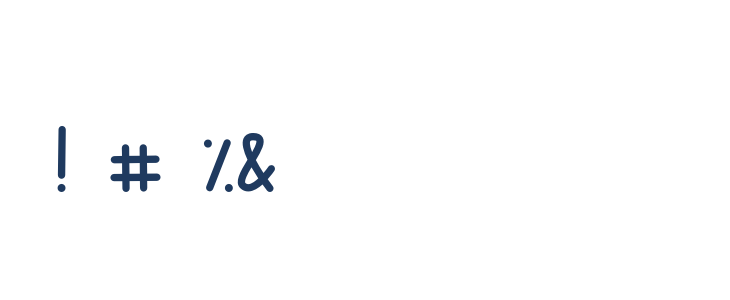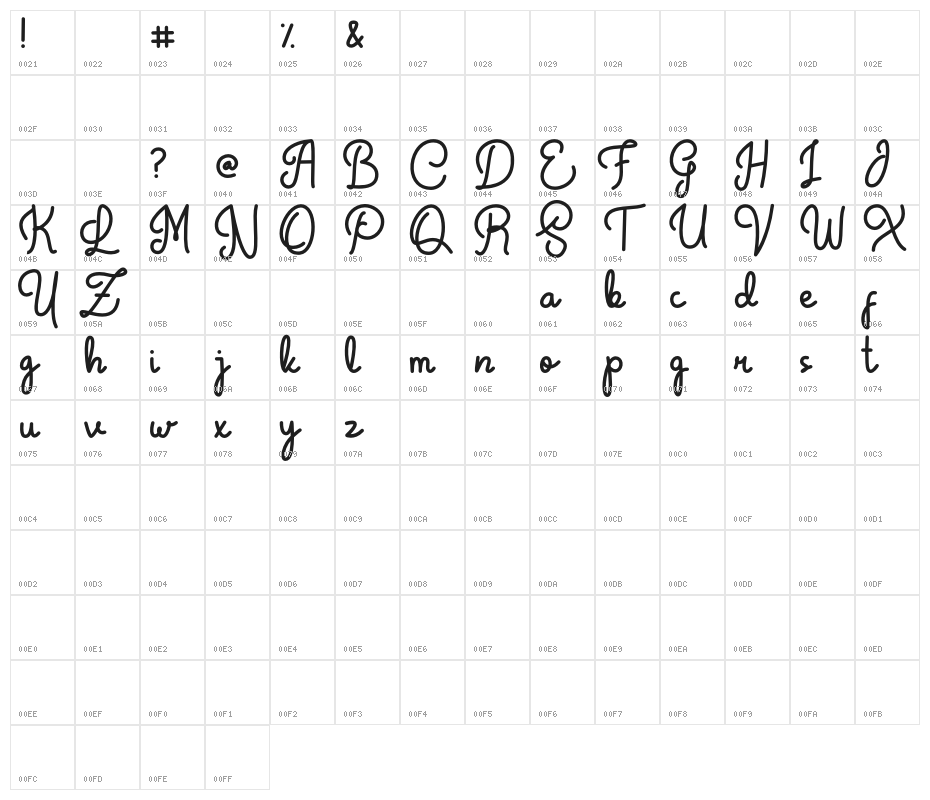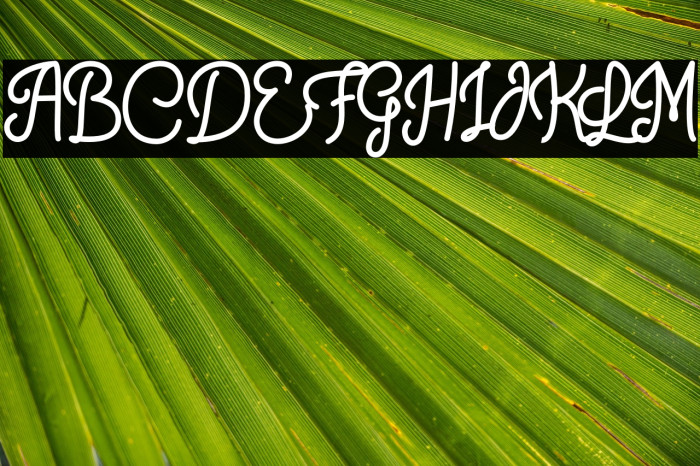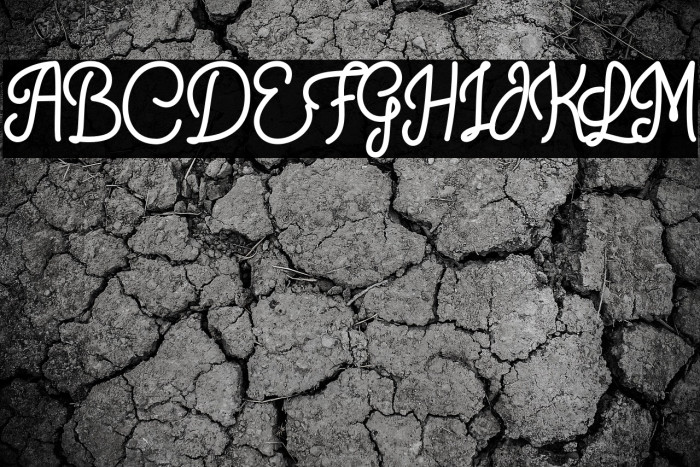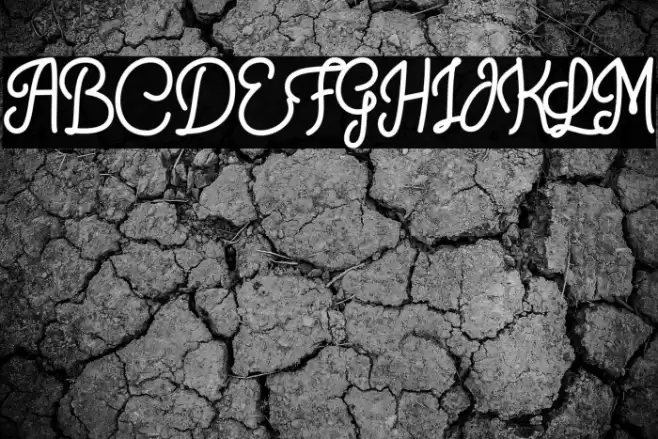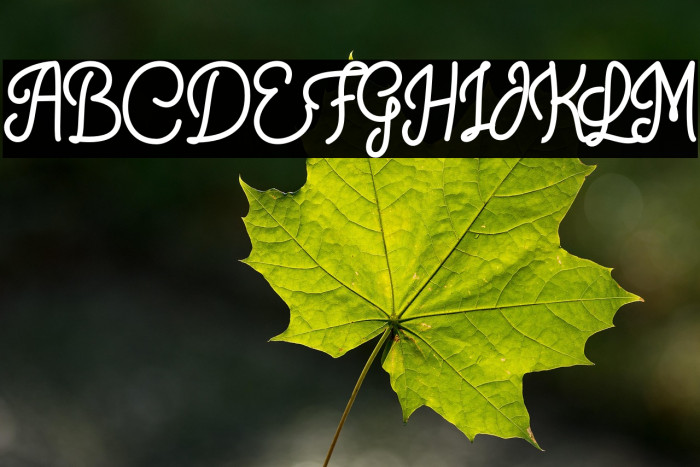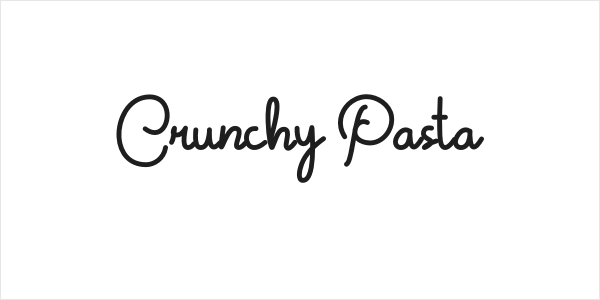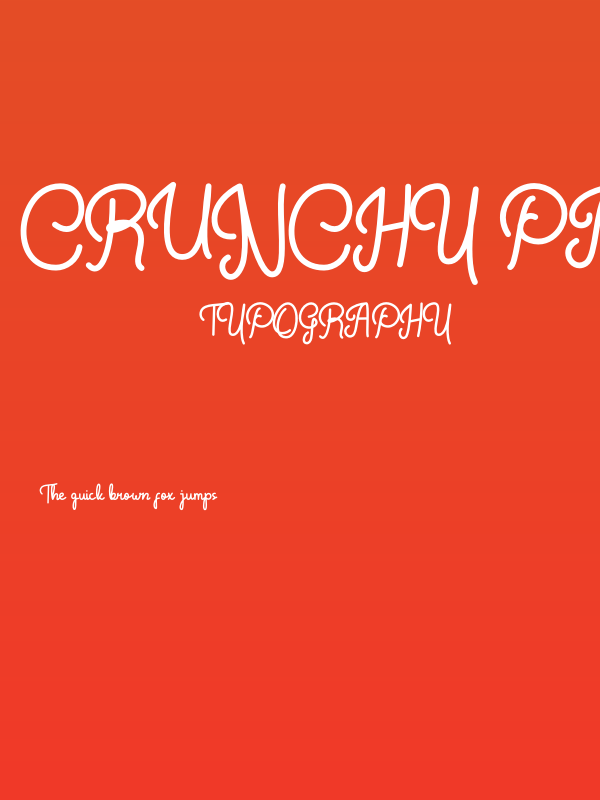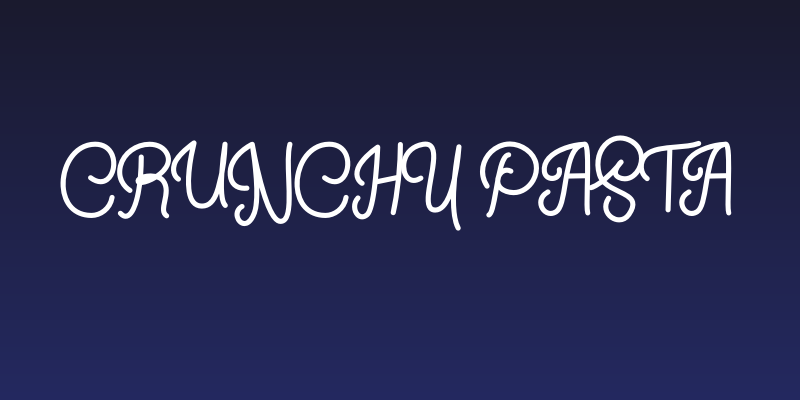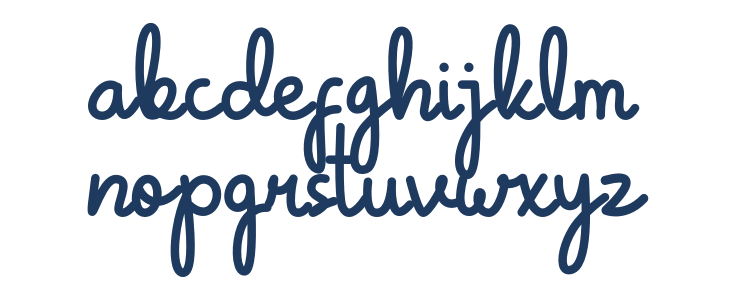
Crunchy Pasta Font
Crunchy Pasta Description
This font features a playful and whimsical script style, characterized by its flowing, interconnected letters. The uppercase letters exhibit a graceful, looping design, while the lowercase letters maintain a consistent, smooth flow. The font's strokes are moderately thick, providing a balanced contrast that enhances readability without sacrificing its decorative appeal. The special characters are designed to complement the overall style, maintaining the same fluidity and charm. This font exudes a sense of fun and creativity, making it ideal for projects that require a personal, handwritten touch.